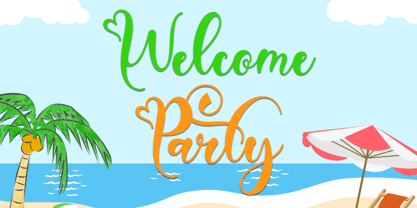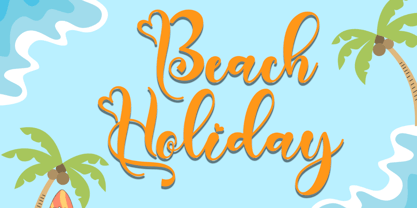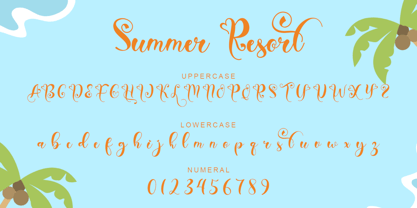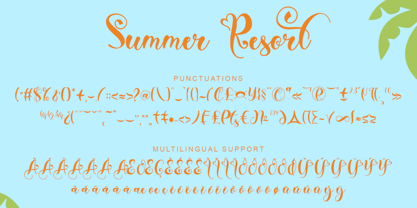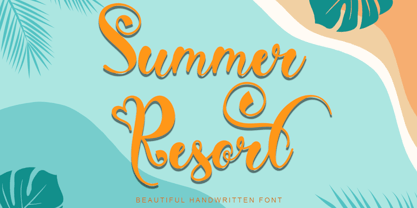
Summer Resort
by Yoga Letter
The Summer Resort Font Family was designed by Isroni Yoga Prasetya and published by Yoga Letter. Summer Resort contains 1 styles. More about this family
"Summer Resort" is a beautiful and elegant handwritten font. This font is equipped with uppercase, lowercase, numerals, punctuations and multilingual support. It is suitable for summer, vacation, holiday, spring, invitations, logos, stickers, posters, prints, camping and others.
Designers: Isroni Yoga Prasetya
Foundry: Yoga Letter